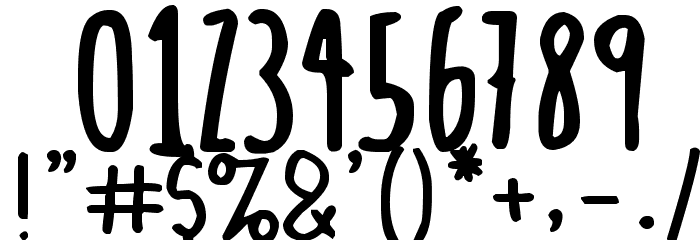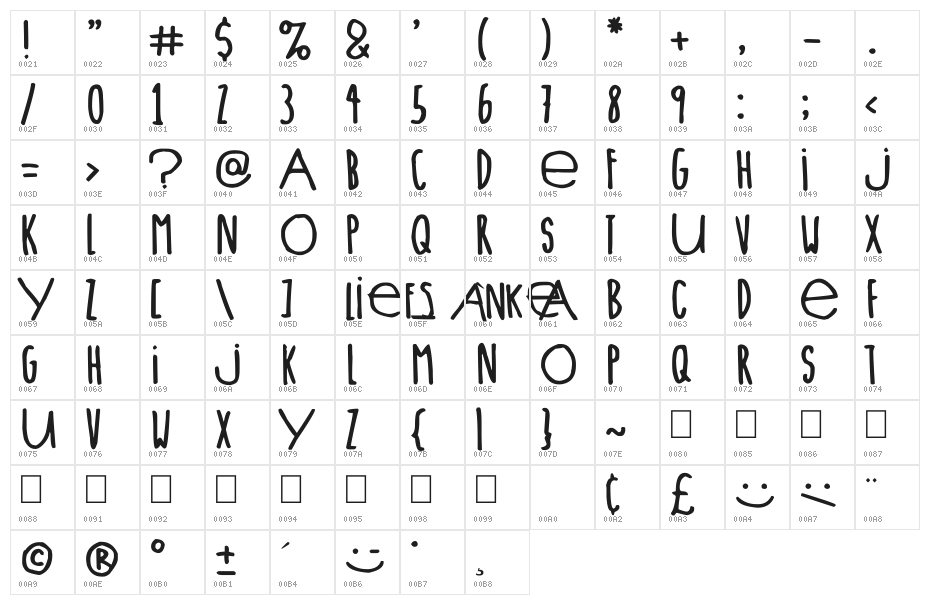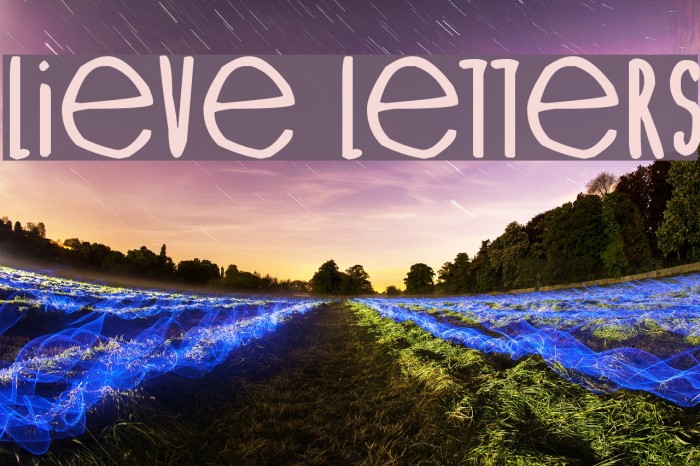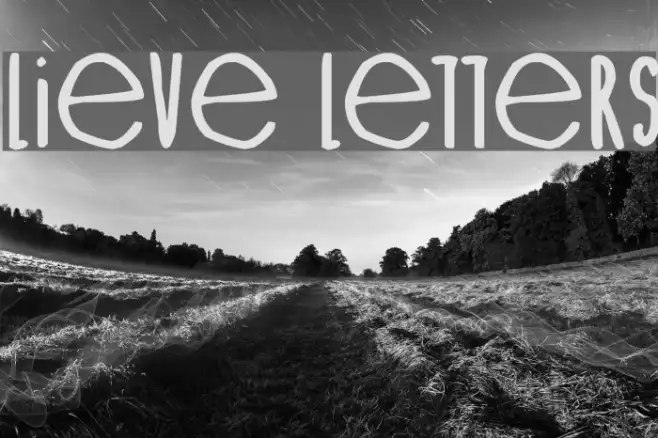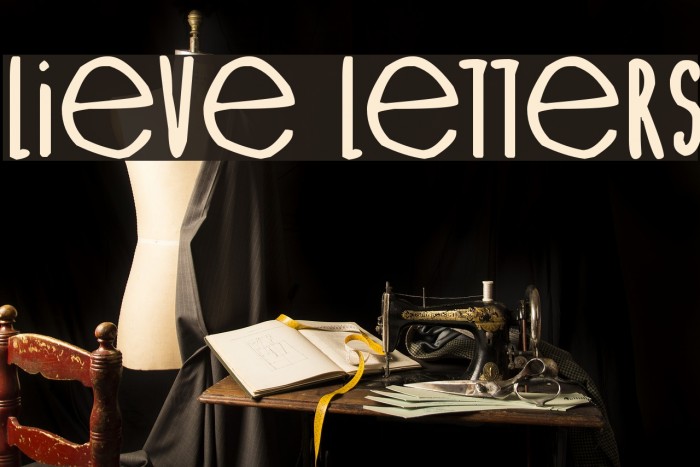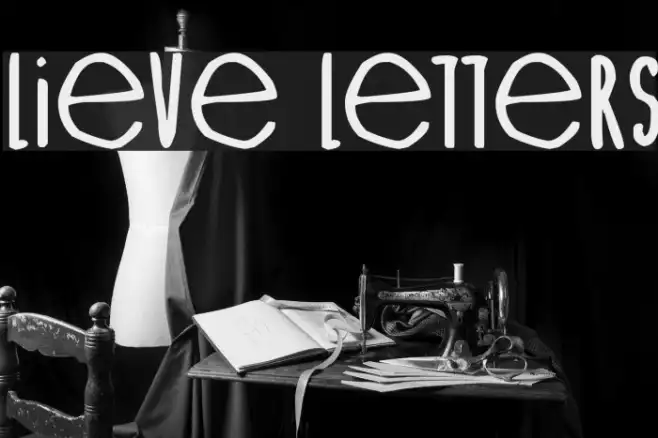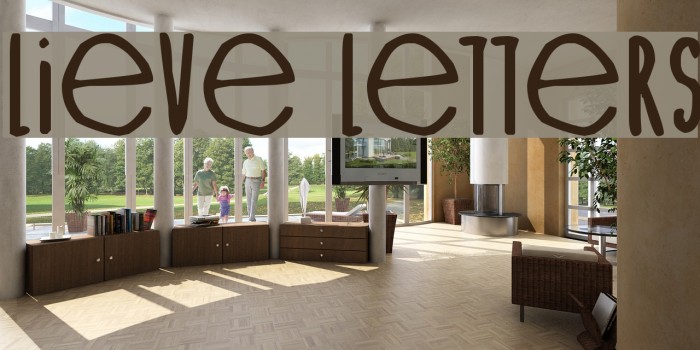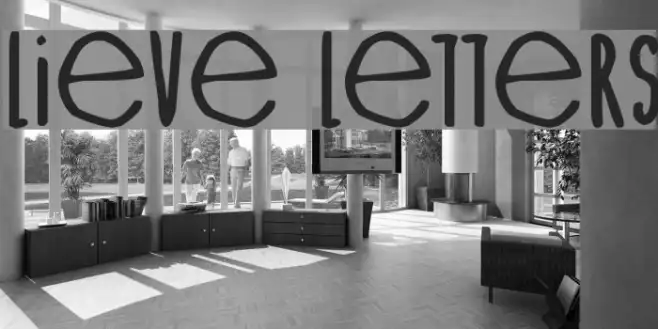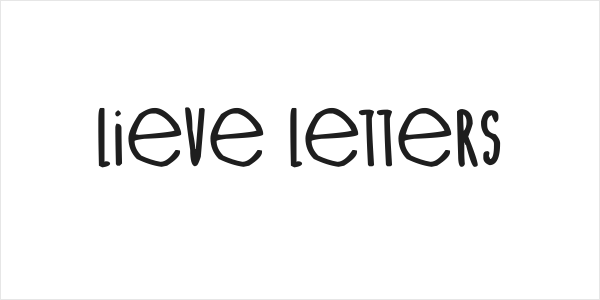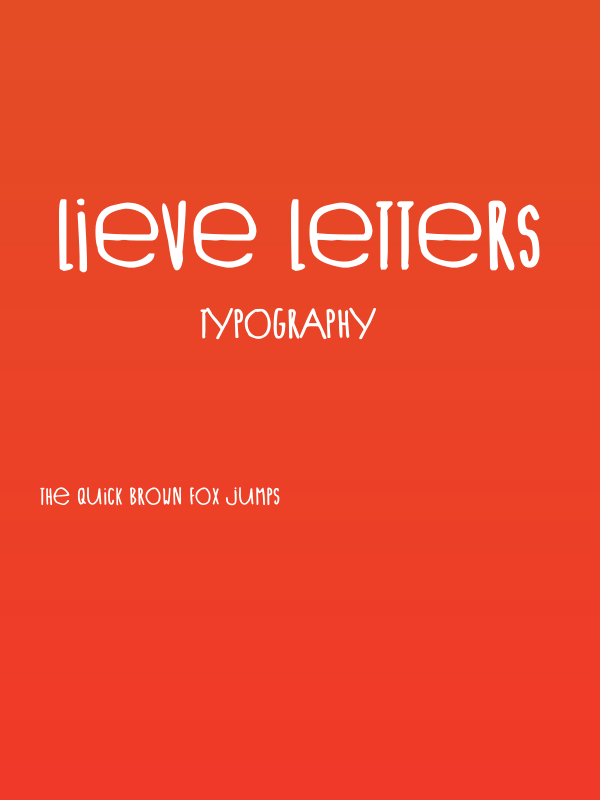
Lieve Letters Font
Lieve Letters Description
This font features a playful and informal style, characterized by its hand-drawn appearance. The letters have a whimsical, slightly uneven quality, giving them a unique charm. The strokes are bold and consistent, with rounded edges that enhance its friendly and approachable look. The uppercase and lowercase letters maintain a consistent style, while the numbers and special characters complement the overall design. This font is ideal for projects that require a personal touch, such as invitations, greeting cards, or children's book illustrations.
| Overall Style | Playful, Informal |
| Proposed Projects | Ideal for invitations, greeting cards, children's books, and playful branding. |